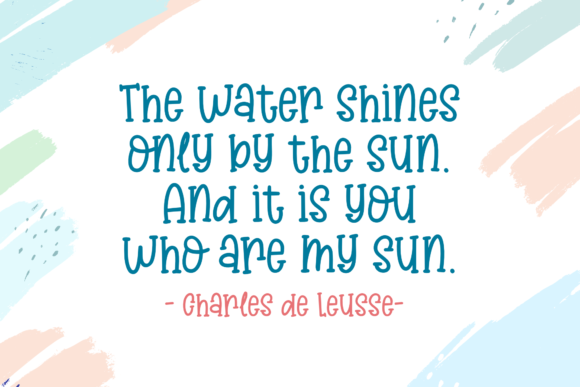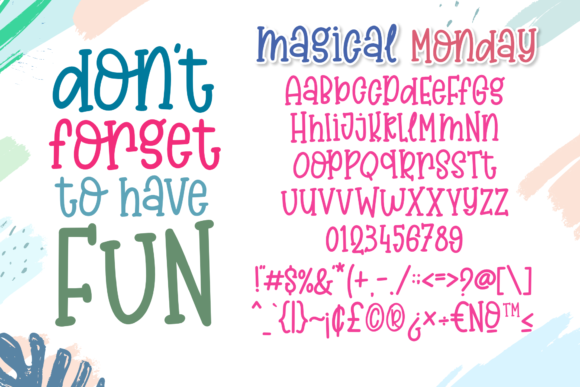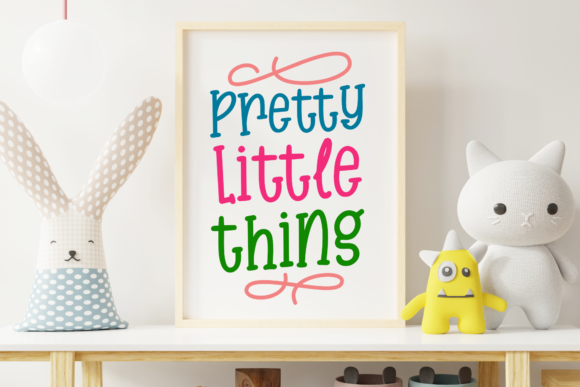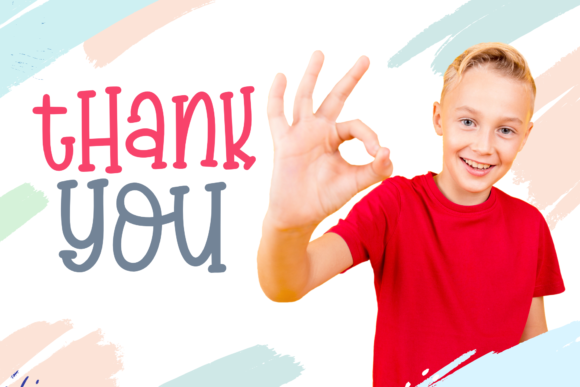
Magical Monday Font
About Magical Monday Font
Magical Monday is a lovely handwritten font that adds a touch of charm and playfulness to your designs. With its bouncy and whimsical style, this font is perfect for adding a dose of creativity and fun to your inspired ideas.
The unique letterforms of Magical Monday give it a distinctive and enchanting look. The playful curves and varying letter heights create a sense of movement and energy, making it a delightful choice for a variety of design projects. Whether you’re creating greeting cards, invitations, posters, or social media graphics, Magical Monday will bring a cheerful and captivating vibe to your designs.
The versatility of Magical Monday allows it to be used in a wide range of contexts. Its friendly and approachable nature makes it suitable for both personal and professional projects. From children’s books and illustrations to branding and packaging, Magical Monday will add a touch of whimsy and creativity to any design.
When you incorporate Magical Monday into your designs, you can let your imagination run wild. Experiment with different color schemes, layering effects, or combinations with other fonts to create truly unique and captivating visuals. The bouncy and charming style of Magical Monday will breathe life into your inspired ideas and make them stand out.
Whether you’re working on a project for a special occasion or simply want to infuse some magic into your designs, Magical Monday is the perfect font choice. Its playful and charming style will captivate your audience and leave a lasting impression. Get creative with Magical Monday and let it bring a touch of enchantment to each of your inspired ideas.